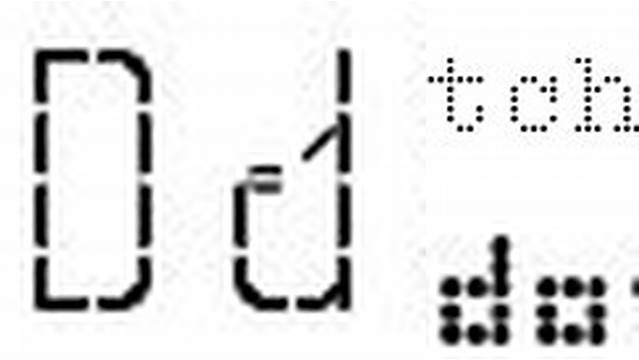
Arvind Dotted Font: Free Download & Usage Guide
Hey guys! Ever stumbled upon a design that just pops because of its distinctive typeface? You know, the kind that makes you lean in and say, "Wow, what font is that?" Well, a lot of that magic often comes from fonts that dare to be a little different. Today, we're diving deep into the world of the Arvind dotted font, and more importantly, how you can snag it for your creative projects – for free! We’ll cover where to find it, how to use it, and why this particular font might just be the missing piece in your design arsenal. Get ready to explore the quirks and charms of this unique lettering style and elevate your designs from ordinary to extraordinary. Let's get this design party started!
Understanding the Arvind Dotted Font Appeal
So, what's the big deal with the Arvind dotted font, you ask? It's all about that subtle yet striking texture. Imagine your regular text, but each letterform is artfully punctuated with tiny dots. This isn't just a random scattering; it’s a deliberate design choice that adds a layer of sophistication, a hint of playfulness, or even a vintage vibe, depending on how you use it. The Arvind dotted font can evoke a sense of craftsmanship, like a letterpress print or a carefully stenciled message. It's versatile enough to be used for everything from wedding invitations and branding for artisanal businesses to eye-catching headlines and unique social media posts. The key is its ability to draw attention without being overly loud. It has a certain je ne sais quoi that makes it memorable and distinct from the plethora of standard fonts available. When you think about fonts that stand out, you’re often looking for something that breaks the mold, and the Arvind dotted font certainly does that with its signature dotted pattern. This typographical embellishment adds a tactile quality to digital designs, making them feel more grounded and perhaps even a little more personal. It’s a fantastic choice for designers who want to inject personality and character into their work without compromising readability. The consistent yet subtle application of dots across the letterforms ensures that the text remains legible while gaining that extra artistic flair. This makes it a powerhouse for projects where you want to communicate a message with both clarity and a touch of artistic flair. Think about the impact of a well-chosen font on the overall perception of your brand or message; the Arvind dotted font offers a unique avenue to achieve this, setting your creations apart in a visually crowded digital landscape. Its charm lies in its ability to be both contemporary and timeless, a rare combination in the font world. It's a font that whispers rather than shouts, allowing the content itself to shine while the typography provides a beautiful, subtle framework.
Exploring Variations of the Arvind Dotted Font
While the core Arvind dotted font offers a distinct look, designers often create variations to cater to different needs. You might find versions of the Arvind dotted font that have denser dot patterns, creating a more solid yet textured appearance. Others might have lighter, sparser dots, lending an airier, more delicate feel. Some variations could include different dot shapes – perhaps small circles, tiny squares, or even star-like points. It's also common to see styles where only certain parts of the letterforms are dotted, like just the stems or the curves, adding another layer of unique character. When you're looking for the Arvind dotted font free download, keep an eye out for these subtle differences. A version with slightly thicker dots might work better for large display text where legibility at a distance is key, while a finer dot pattern could be ideal for smaller, more intricate designs. Some foundries might even offer condensed or expanded versions of the dotted style, giving you more options for fitting text into specific layouts. Think about the context of your project. Are you going for a bold, impactful statement, or something more subtle and refined? The specific variation of the Arvind dotted font you choose can dramatically influence the overall mood and message of your design. Don't just settle for the first dotted font you find; explore the nuances. Perhaps one version has a cleaner, more modern feel, while another leans into a more vintage or distressed aesthetic. These variations are often born from the designer’s exploration of the original concept, pushing the boundaries of what the dotted effect can achieve. It’s like having a family of fonts derived from a single idea, each with its own personality. This exploration allows you to fine-tune your typographic choices, ensuring that the Arvind dotted font perfectly matches the specific tone and visual language of your project. You might discover that a particular weight or style within the Arvind dotted family provides the ideal balance of readability and decorative flair that you were searching for. It’s this attention to detail and the availability of varied styles that make the Arvind dotted font a truly valuable asset in any designer's toolkit, allowing for nuanced expression and a bespoke feel in every creation.
Tips for Maximizing the Arvind Dotted Font's Potential
To really make the Arvind dotted font shine in your projects, think beyond just applying it. Consider the context and the overall design aesthetic. This font often works exceptionally well for branding that aims for a modern, minimalist, or even slightly quirky feel. For instance, a boutique coffee shop or an artisanal bakery could use the Arvind dotted font for their logo or menu design to create a memorable and unique brand identity. It's also fantastic for crafting impactful headlines on websites or in print materials. Imagine a blog post title about a special event or a new product launch; using the Arvind dotted font here will immediately grab the reader's attention. When using it for body text, be mindful of the size and spacing. Because of the dots, very small sizes might reduce legibility. It often performs best as a display font, used for titles, subheadings, or short bursts of text where its unique character can be appreciated without overwhelming the reader. Experiment with letter spacing (kerning) and line spacing (leading) to fine-tune its appearance. Sometimes, adjusting these subtle details can make a huge difference in the overall harmony of your design. Pairing the Arvind dotted font with a simpler, cleaner sans-serif or serif font can create a beautiful contrast, allowing the dotted font to be the star while the supporting font ensures readability for longer passages of text. Don't be afraid to play with color, too. The dots can pick up accent colors in your design, adding another layer of visual interest. However, avoid using too many competing colors, as this can make the design feel cluttered. Stick to a cohesive color palette. Another great use is for special occasions – think invitations, greeting cards, or party banners. The Arvind dotted font can add a touch of elegance and personality that generic fonts just can't match. If you're designing social media graphics, using this font for quotes or key messages will make your posts stand out in the feed. Ultimately, the key is experimentation. Try it in various contexts, play with its settings, and see what resonates best with your design goals. The Arvind dotted font is a tool, and like any tool, its effectiveness depends on how skillfully you wield it. Explore its potential, push its boundaries, and discover the unique impact it can have on your visual storytelling. Remember, the goal is to enhance your message, not distract from it, so use this distinctive font thoughtfully to achieve the best results.